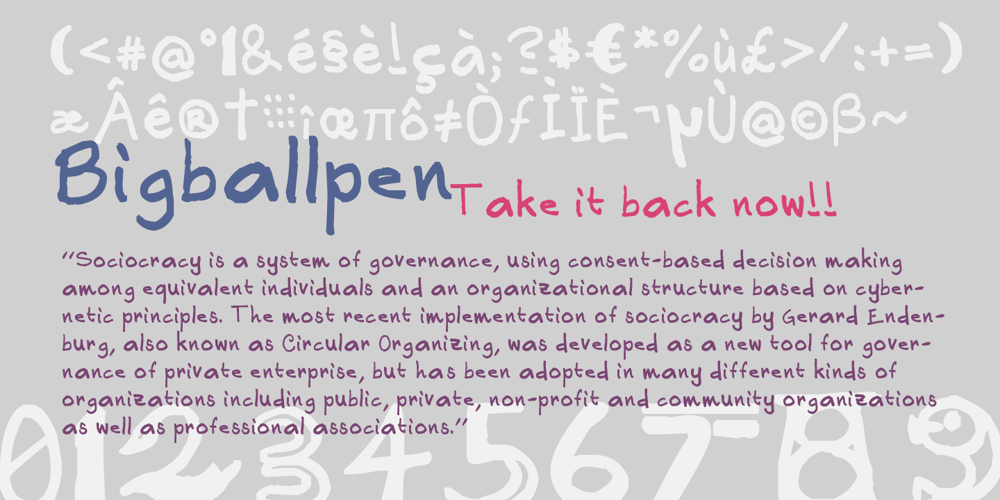
Big Ballpen Font Family was designed by Simon Kobayashi and published by Simonkoba. Big Ballpen contains 1 styles and family package options. Big Ballpen is a modern, slightly naive handwriting typeface, which has the feel of graffiti with its rough lines. The font lines are basically fat and the thickness is not regular from letter to letter. Some numbers are inspired from Tony Buzan concept of picture-number. For example, the number 2 resembles a swan. Some special characters like €$*#@&{Ç~• are available.